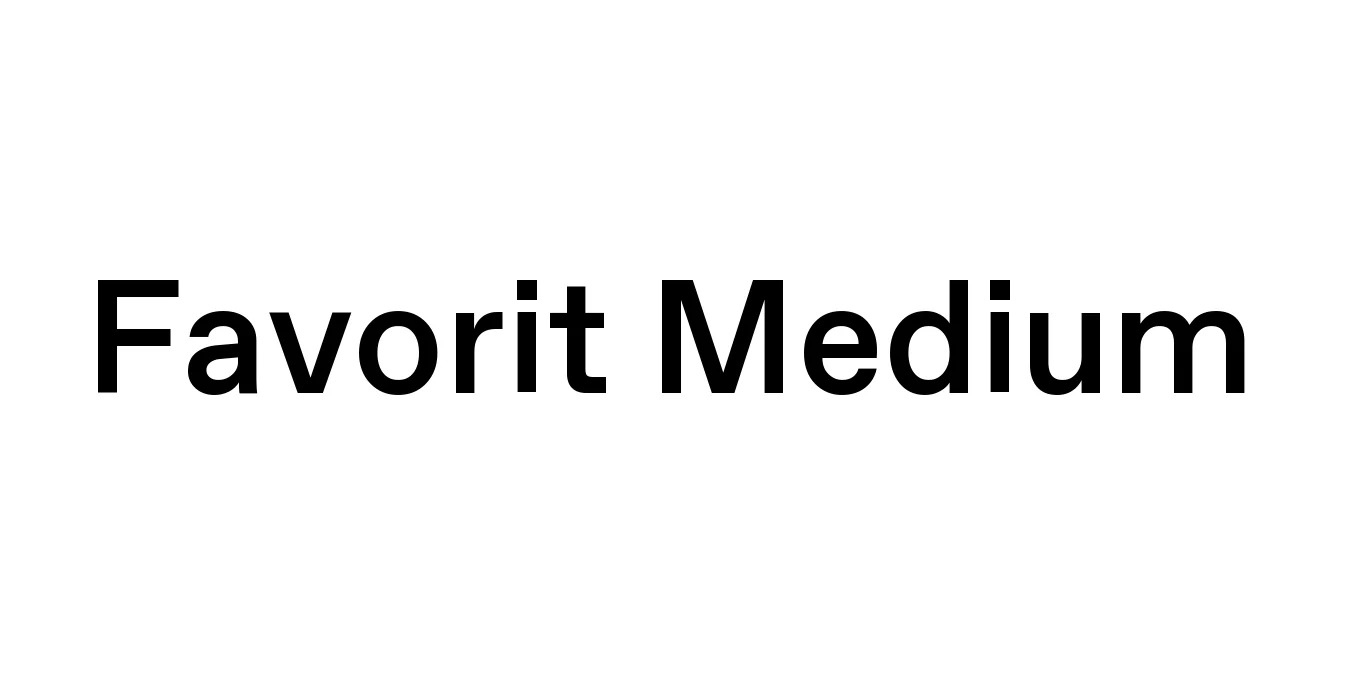
Favorit Medium
Designed by Johannes Breyer & Fabian Harb (Dinamo)
Favorit Medium is a contemporary sans-serif typeface designed by the Swiss design studio Dinamo. It represents a modern evolution of the classic grotesque style, blending utilitarian geometric construction with subtle, idiosyncratic details. The Medium weight strikes a perfect balance, offering enough visual weight for display purposes while maintaining excellent legibility for secondary text, making it a versatile tool for high-end graphic design.
Since its release, Favorit has gained significant traction in the creative industry for its architectural feel and understated elegance. Its low-contrast strokes and distinctive character cuts allow it to stand out in a crowded field of sans-serifs without being overly decorative. It is frequently employed by leading fashion brands, digital agencies, and editorial designers who seek a typeface that embodies a sophisticated, minimalist Swiss aesthetic.
Favorit Medium Best Uses
Ideal for building a strong, professional, and modern brand presence.
Perfect for magazines and digital publications requiring a clean look.
Optimized for readability across various digital screen resolutions.
Works exceptionally well for bold headlines and minimalist marketing collateral.